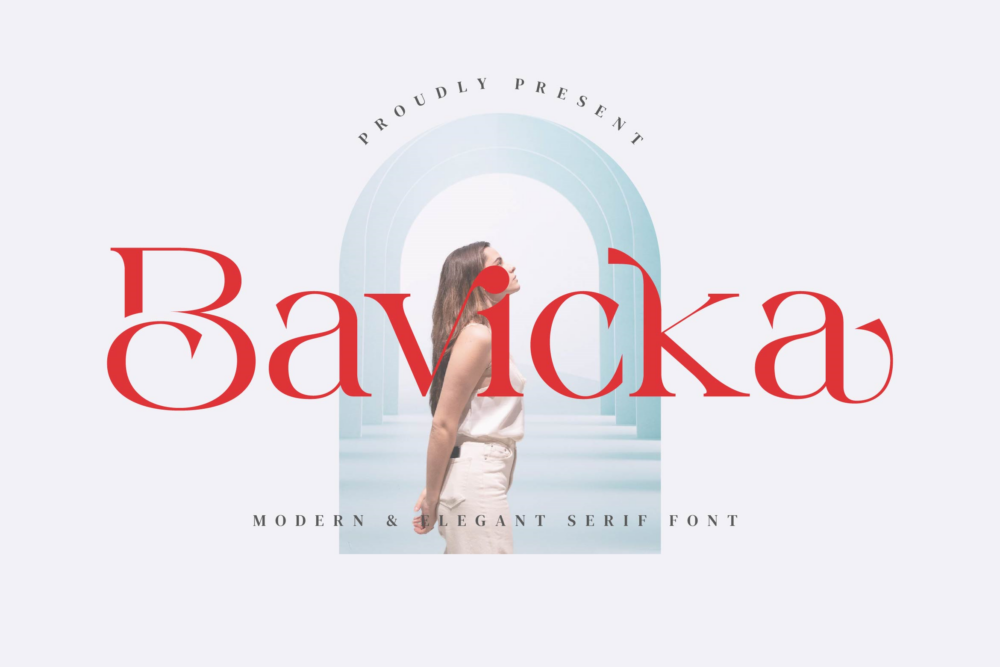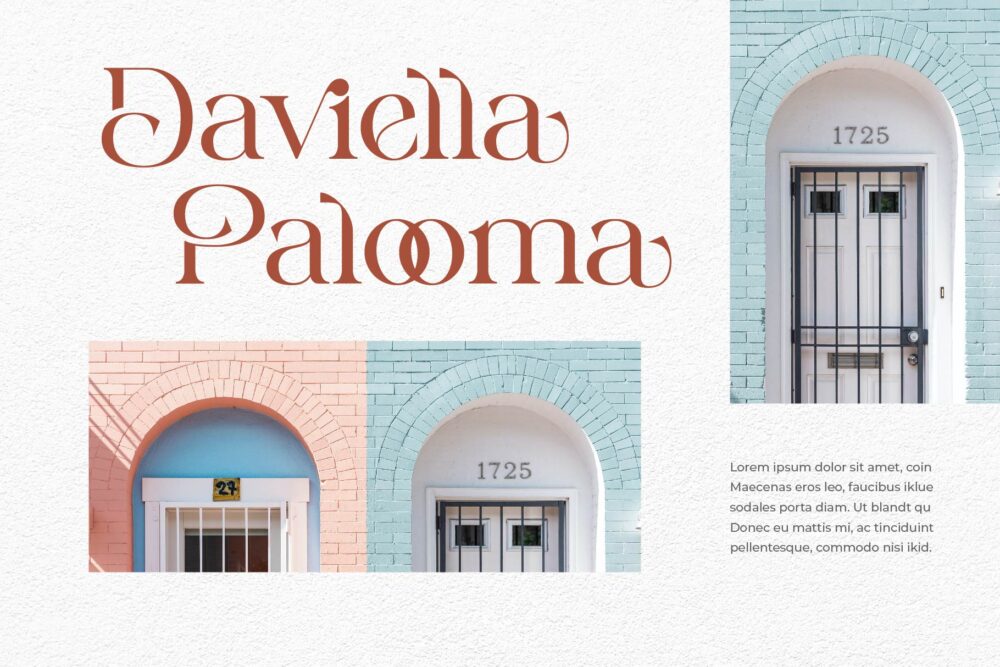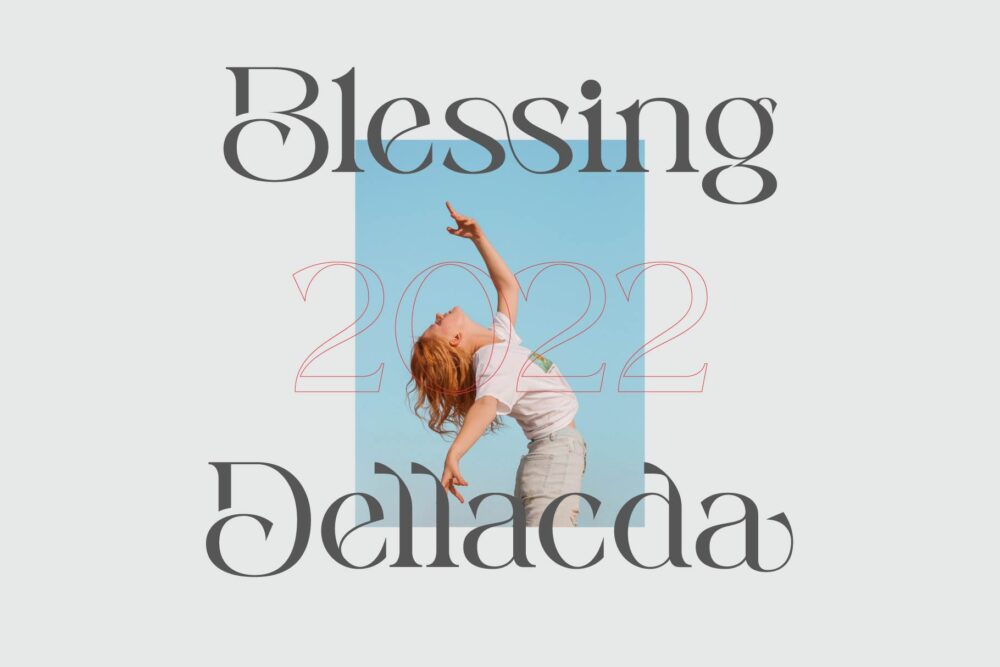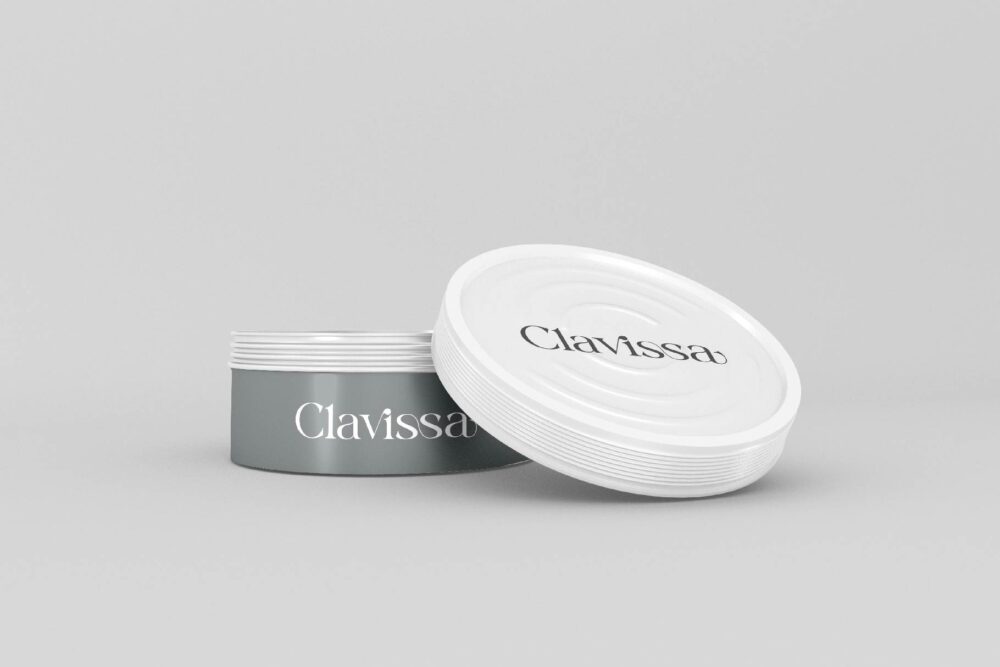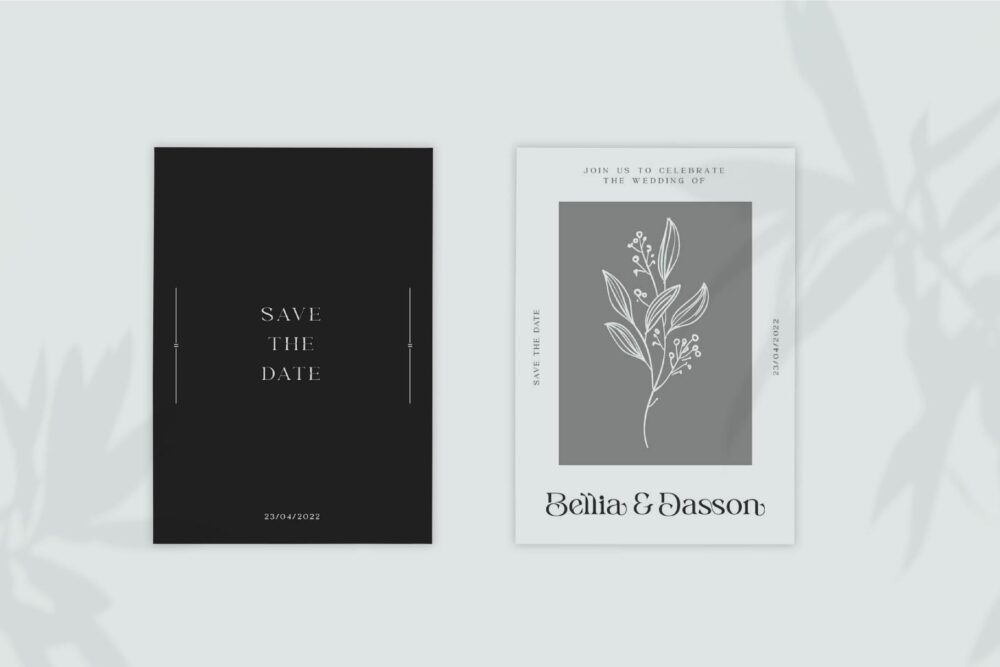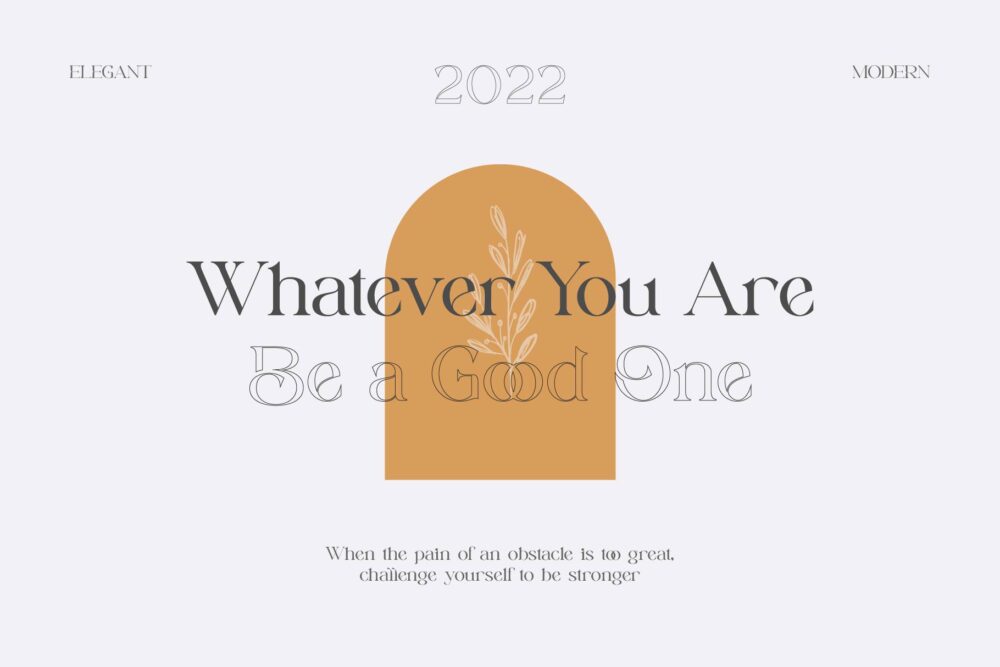
Bavicka
Bavicka Stylish Ligature Typeface, inspired by the famous minimalist logo perfect for the purposes of designing templates, brochures, videos, advertising branding, logos and more.
Bavicka – Modern Elegant Serif Font